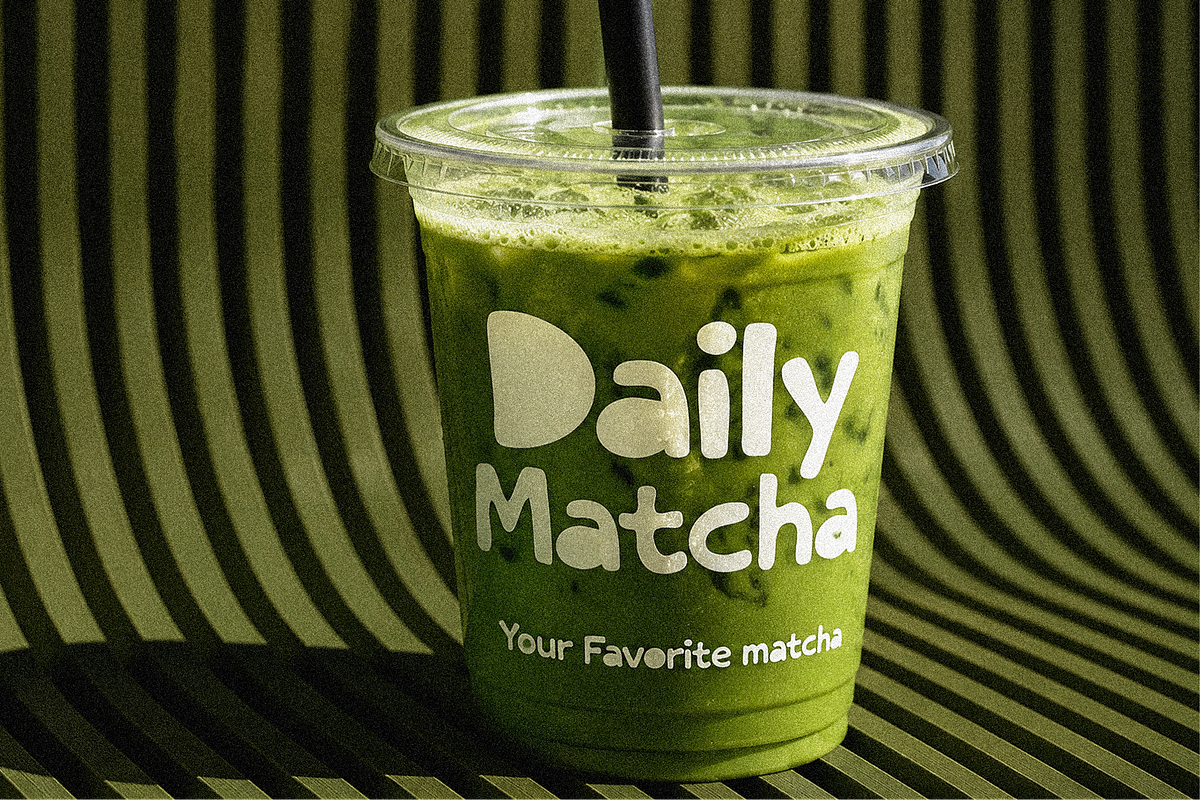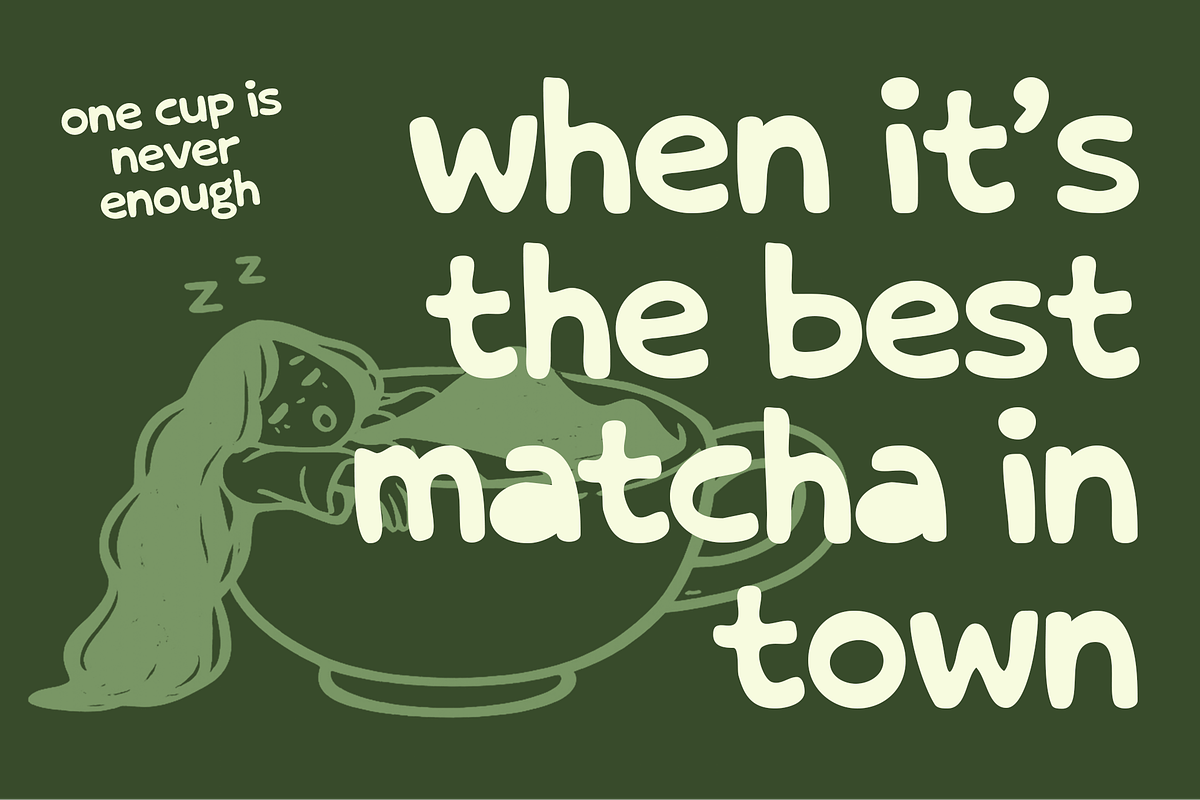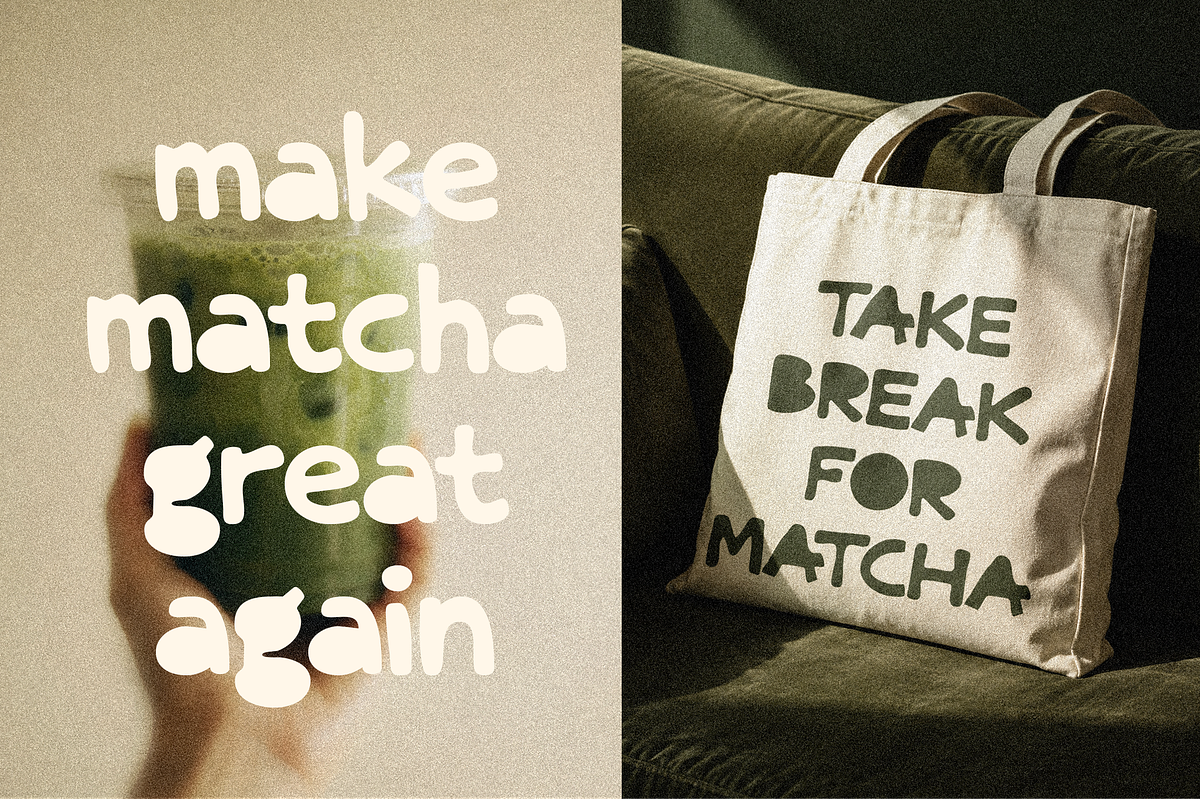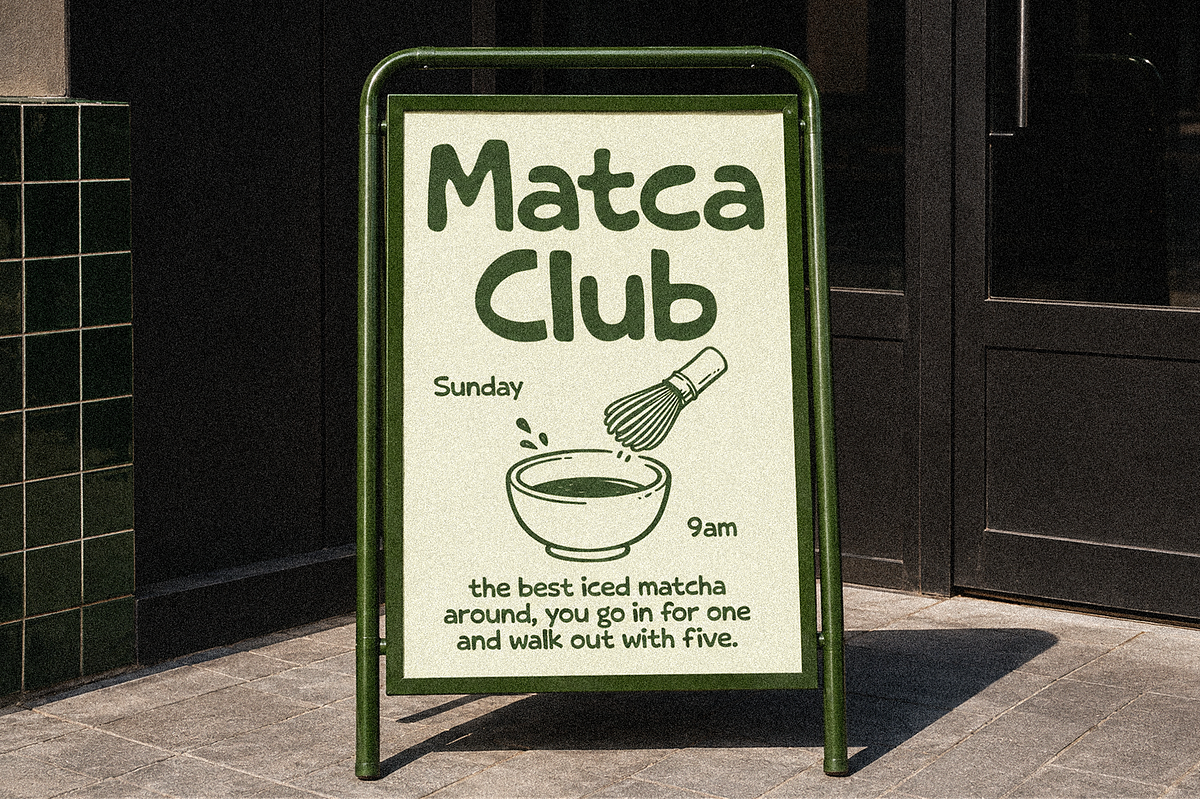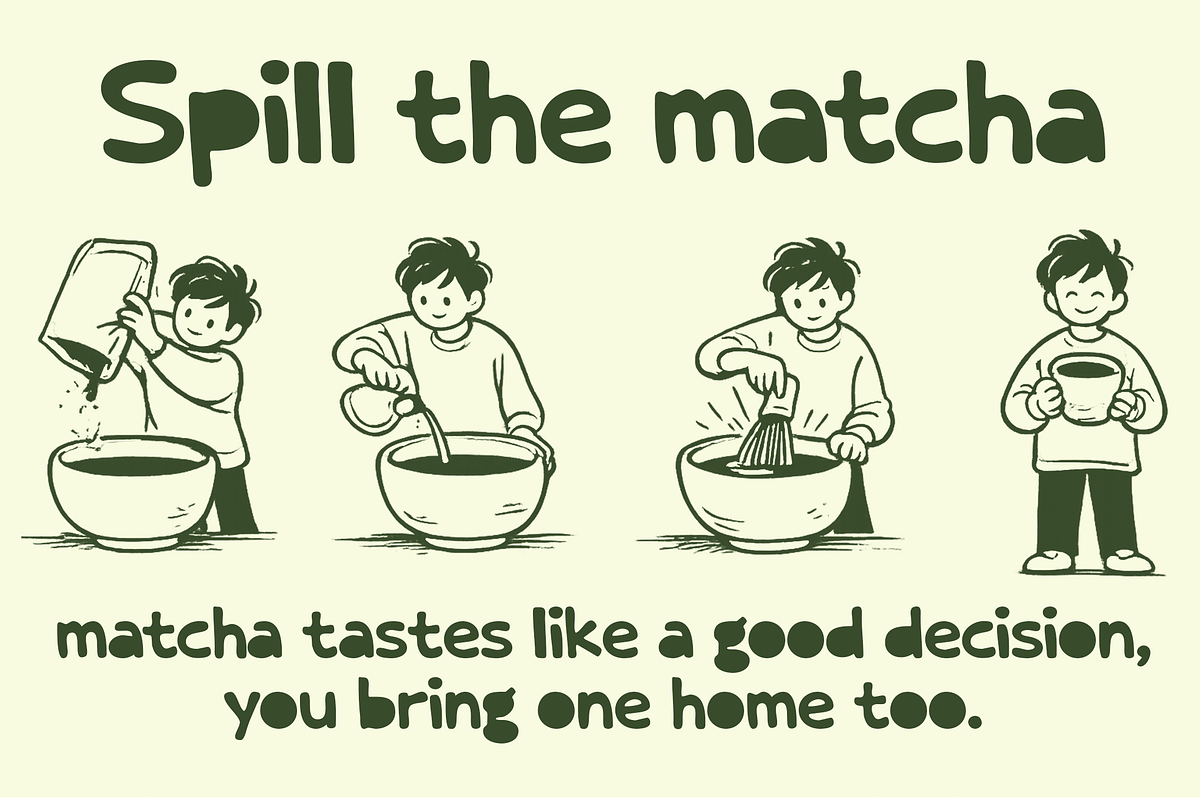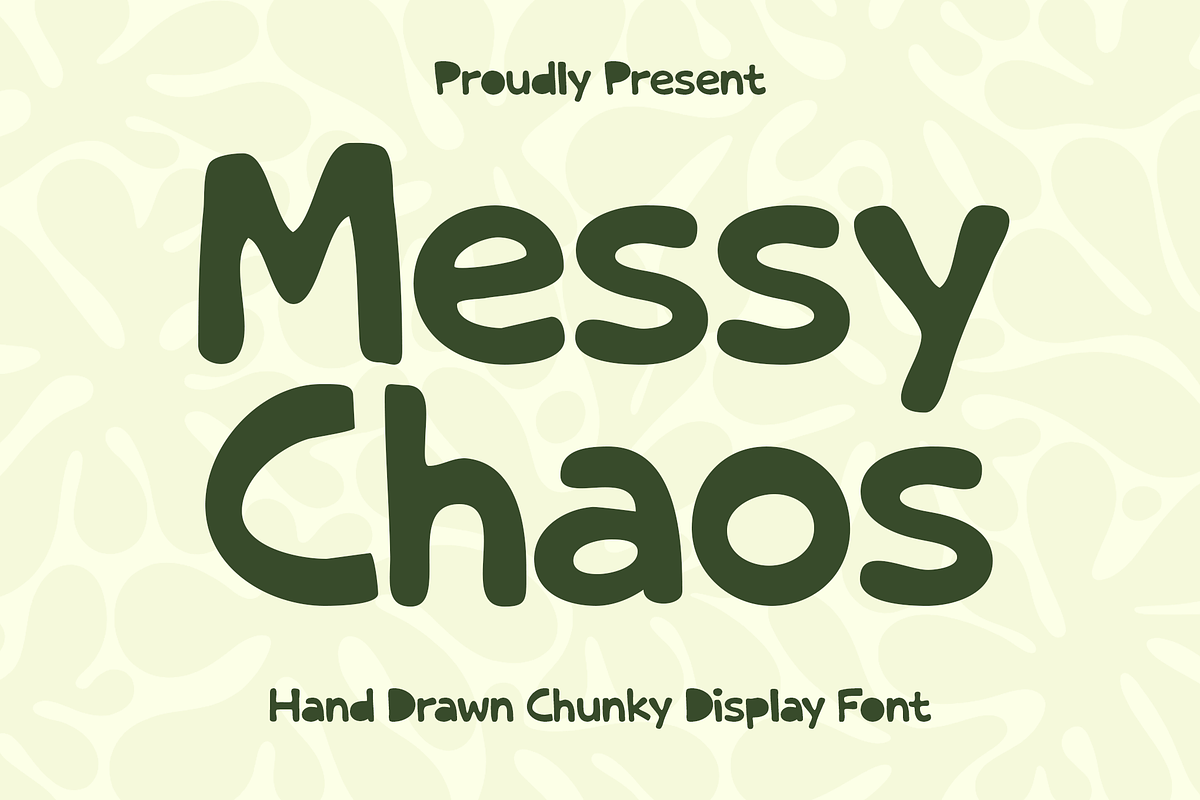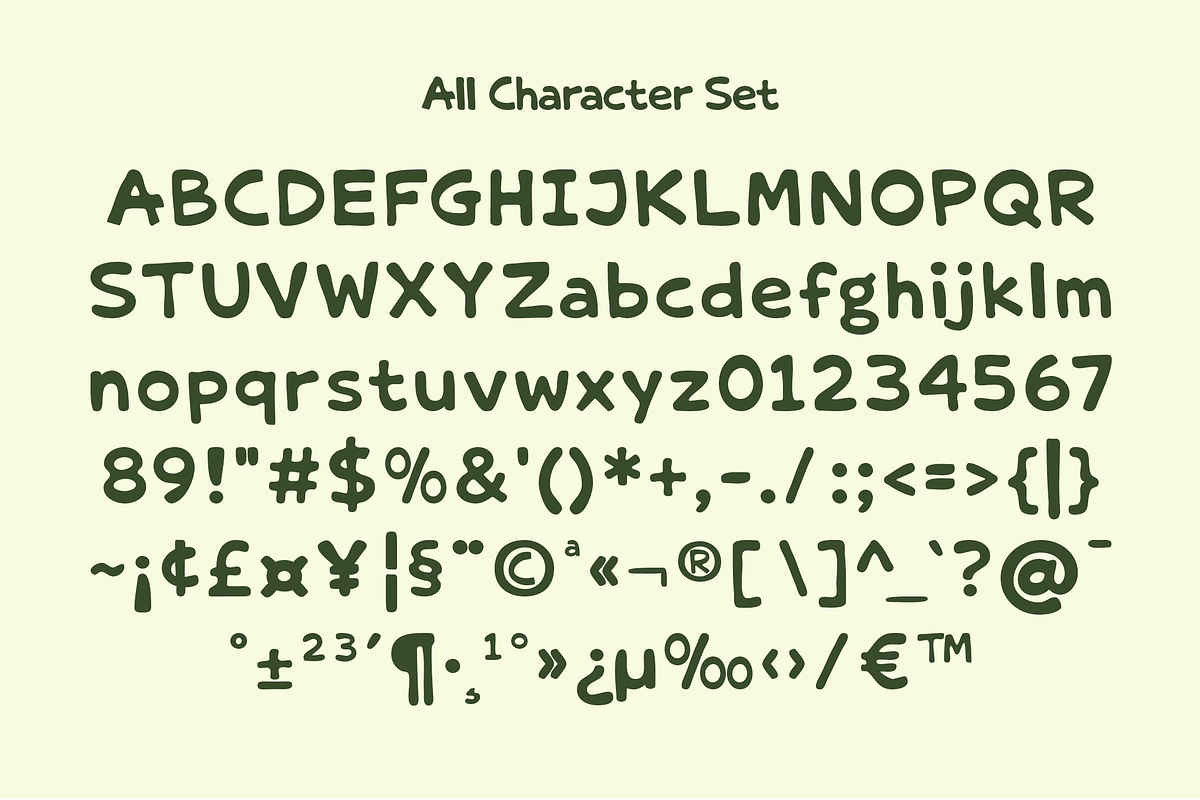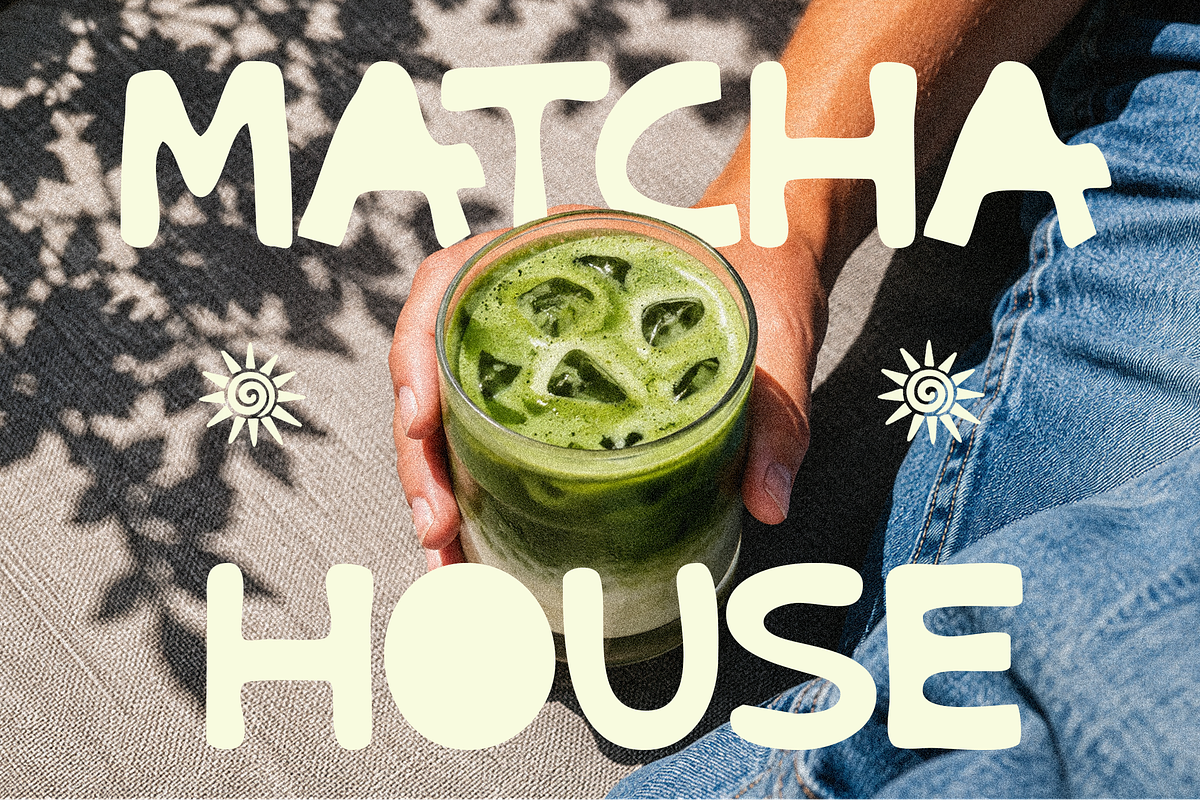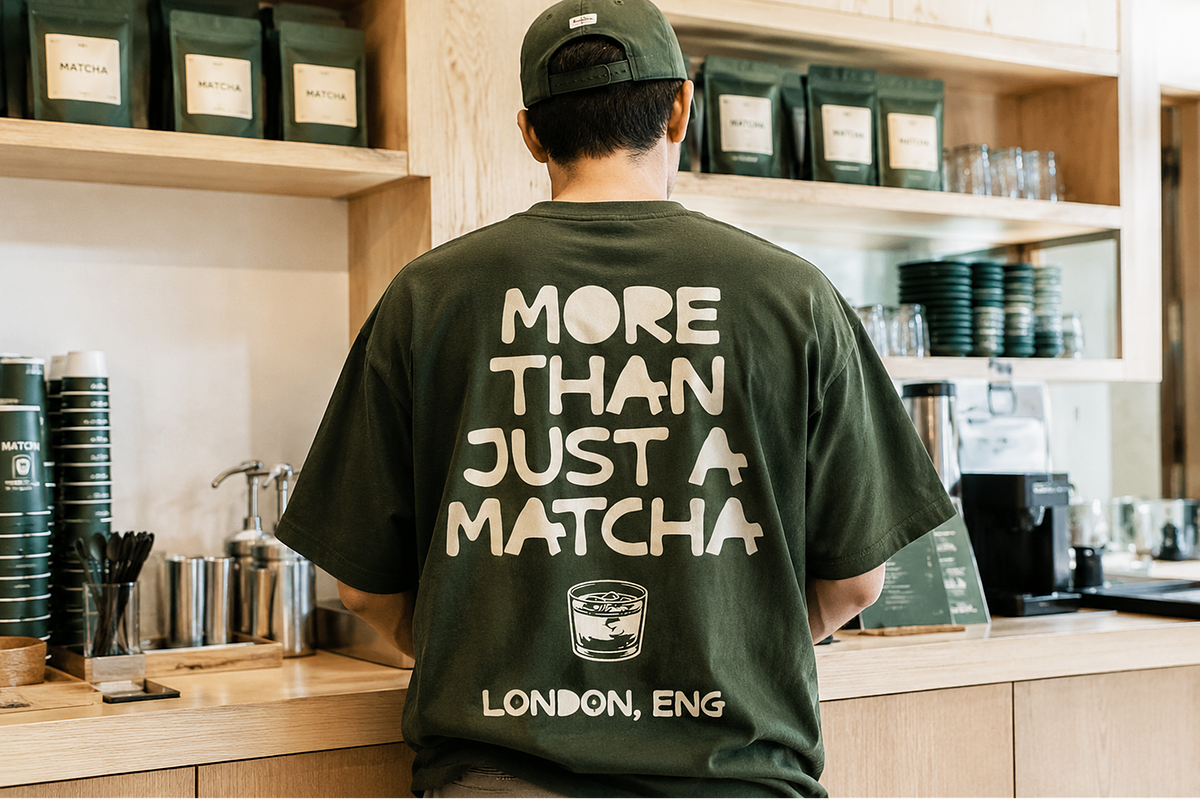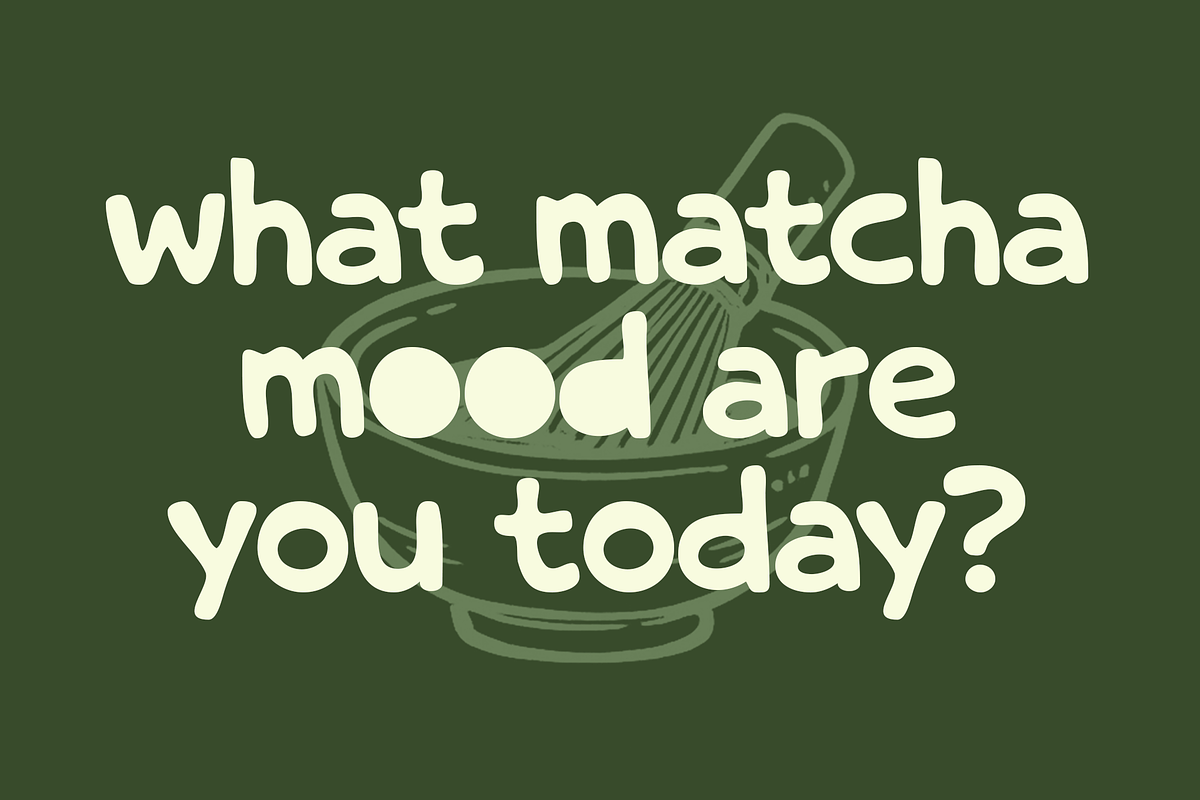
Messy Chaos – Playful Chunky Display
Introducing Messy Chaos – Playful Chunky Display Font
Messy Chaos is a chunky hand-drawn display font with soft rounded strokes, wobbly edges, and a playful handmade rhythm. Its casual shape works best at larger sizes for headlines, posters, labels, packaging, food graphics, children’s themes, and playful branding.
Uppercase and lowercase letters
Numbers, punctuation, and symbols
Standard Regular style
Suitable for display typography